This updated guide explores beautiful fonts for wedding invitations and weddings with practical details, clear explanations, and useful takeaways. From invitations to venue signage, content plays a big role in shaping your wedding day. To make a great first impression and set an elegant and romantic tone, you need the right wedding font.
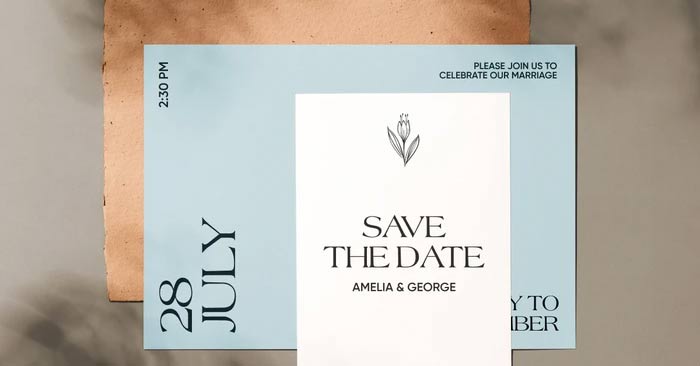
You will find three main font styles that work well for weddings: Script, Serif, and Sans Serif. You can experiment with unique, quirky fonts to create a special impression.
The good news is that you do not have to spend hours scrolling through hundreds of fonts to find the best one … This article will introduce you to 15 fonts for the big day, and help you find the ones that suit your wedding style.
Choose the Right Wedding Font
To know which font is best to set the tone for your wedding, you need to understand the different styles of commonly used wedding fonts .
- Script fonts are a classic choice because they simulate handwriting, adding a personal touch and a sense of elegance and beauty with their delicate strokes.
- Serif and Sans Serif fonts are a little less formal and easier to read. They are well suited to more text-heavy designs.
- You can choose Serif fonts to maintain a traditional and timeless aesthetic, while Sans Serif fonts give a more modern and clean look.
- Fonts with unique designs, like the ones in Picsart's font generator, are great if you really want to stand out.
Combining different font types lets you maximize readability and create elegant, high-end designs. for instance, you can use a more complex font for headlines and a clearer font for body text.
Fonts help set the tone for your special day. The table below will give you a rough guide to which major font styles work best with different wedding aesthetics.
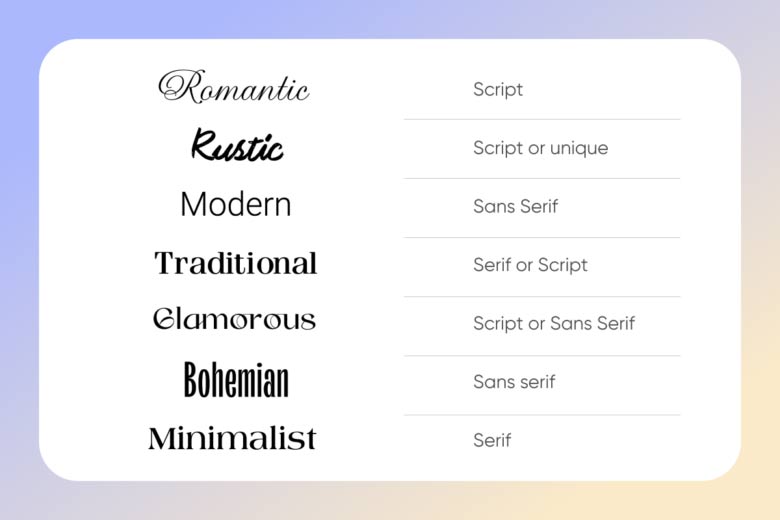
Most Popular Wedding Fonts in 2024
Unique Wedding Fonts
1. Fraktur
If you're looking for something a little more rustic, Fraktur will really grab your attention. With an almost gothic style and plenty of personality, this is a great font for creating unique wedding invitations.
2. Lefthanded
Lefthanded is an artistic font with uniquely shaped letters that look like they were handwritten. Use this font to create a closer connection with your customers by adding warmth and authenticity to your designs.
3. Double Struck
Double struck features double-lined letters that look like they were hand drawn. This is the perfect font for those who want a minimalist and modern look for their wedding, but want to add an artistic touch.
Handwritten Wedding Fonts
1. Romantically
Romantically, as the name suggests, is the perfect font to create a romantic atmosphere. With its beautiful, almost handwritten style, this font feels like a freshly written love letter. This is one of the most beautiful fonts for wedding invitations!
2. Candlescript
With its decorative uppercase details and large, sweeping letters, Candlescript brings drama and grandeur to any wedding design. it is still highly legible, making it a great choice for everything from signage to seating charts.
3. Clattering
A bold handwritten font, Clattering stands out from the crowd. Use it sparingly on wedding invitations or thank you cards to make an impression! You could also pair it with an equally strong Instagram caption to really capture the magic.
4. Flanella
Flanella is drawn with delicate lines and lots of decorative details, making it an ideal choice for adding a quirky and charming feel to wedding invitations, signs, and other decorative elements.
Traditional Serif Font
1. Libertinus
With clean letters and tight lines, Libertinus has a traditional feel that makes it ideal for classic wedding invitations, signage, and seating charts. Pair it with a handwritten font for a timeless design that you cannot go wrong with.
2. Yesterday
Yesterday is a modern font that retains a romantic nostalgic feel. Perfect for traditional weddings, use this font on invitations, signs, and more to create a personal connection with your guests.
3. The Paloma
A minimalist and easy-to-read font, The Paloma is perfect for classic, minimalist weddings. You can pair it with more complex fonts for a subtle contrast.
4. Morgin Astera
Morgin Astera is a clean font that still catches the eye because it has decorative details on some of the letters. Therefore, it is a great choice for a variety of invitations. You can use this font for signage because it looks great at large sizes.
Modern Sans Serif Font
1. Amore
Amore brings a modern twist to a classic and timeless font. This font is perfect for lavish weddings where the goal is to create a luxurious, glamorous feel. Use this wedding font in your social media posts to stand out.